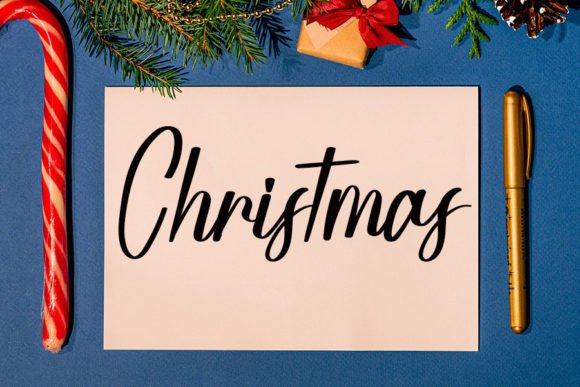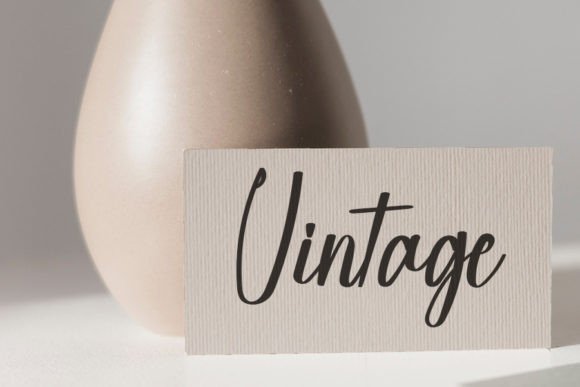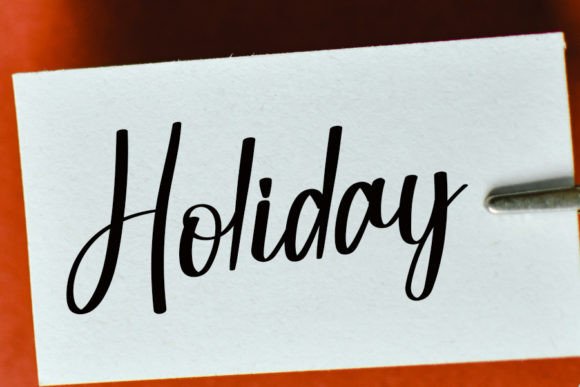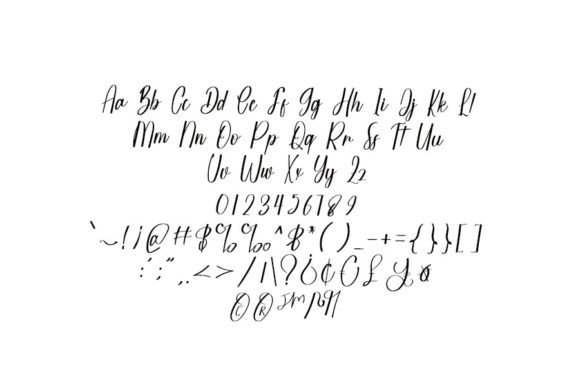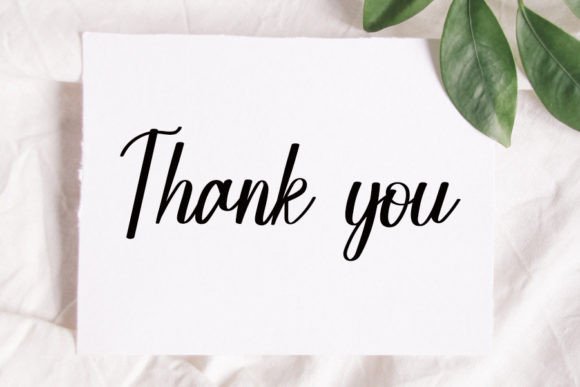
About January Font
January is a neat and beautiful handwritten font designed to add a touch of elegance to any project. With its smooth curves and clean lines, January offers a timeless style that feels both modern and classic.
Whether you’re creating wedding invitations or social media graphics, this font brings sophistication and warmth to every design. Each letter has been carefully crafted to look effortless and refined.
A Timeless Handwritten Feel
January stands out because of its graceful and balanced letterforms. The strokes are clean but still retain the organic character of true handwriting. This makes it perfect for designs that need a personal, authentic feel without losing professionalism.
The font has just the right amount of flair—elegant enough for formal projects but still simple enough to keep things approachable.
Versatile for Any Project
January is a font you can rely on for many creative uses, including:
Wedding Invitations: Give your special day an elegant, personal touch.
Branding Materials: Design logos, business cards, and packaging that look polished.
Greeting Cards: Add sincerity and warmth to messages.
Quotes and Wall Art: Make words stand out beautifully.
Social Media Posts: Create eye-catching content that feels genuine.
Stationery: Design letterheads and envelopes that feel refined.
Event Announcements: Add sophistication to save-the-date cards and flyers.
Why Choose January?
Clean and Neat: Crisp lines make it perfect for both digital and print use.
Elegant: Each character feels graceful and balanced.
Timeless: A style that never goes out of fashion.
Versatile: Use it for casual designs or sophisticated branding.
Easy to Read: Even in smaller sizes, the text stays clear and legible.
Design Tips for January Font
Pair with a Simple Serif: This contrast will make your headings pop.
Use Soft Colors: Pastel shades highlight the gentle curves.
Keep it Spacious: Let the text breathe to enhance its elegance.
Showcase in Larger Sizes: This reveals all the unique details.
Mix with Illustrations: Add floral or hand-drawn elements for a cohesive look.
January is more than just a font—it’s a way to bring your ideas to life with warmth and grace. From branding to personal projects, this typeface will make your designs stand out and feel unforgettable.